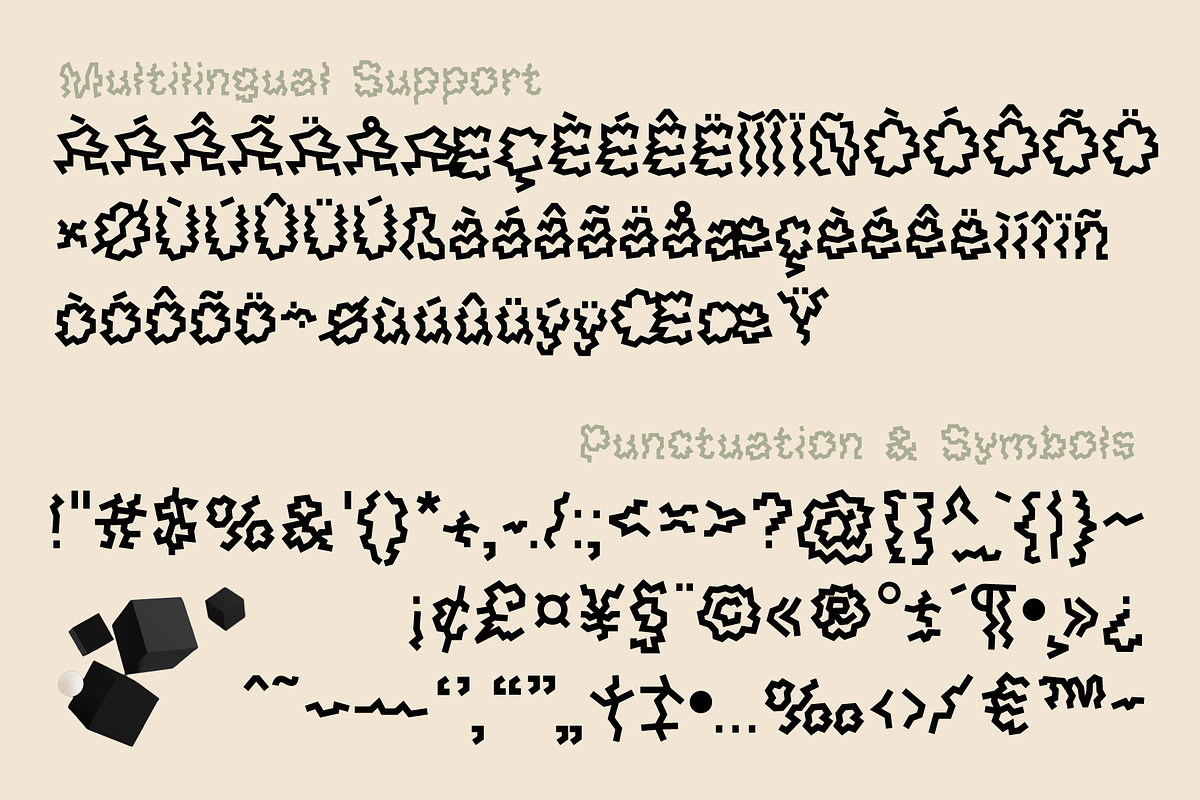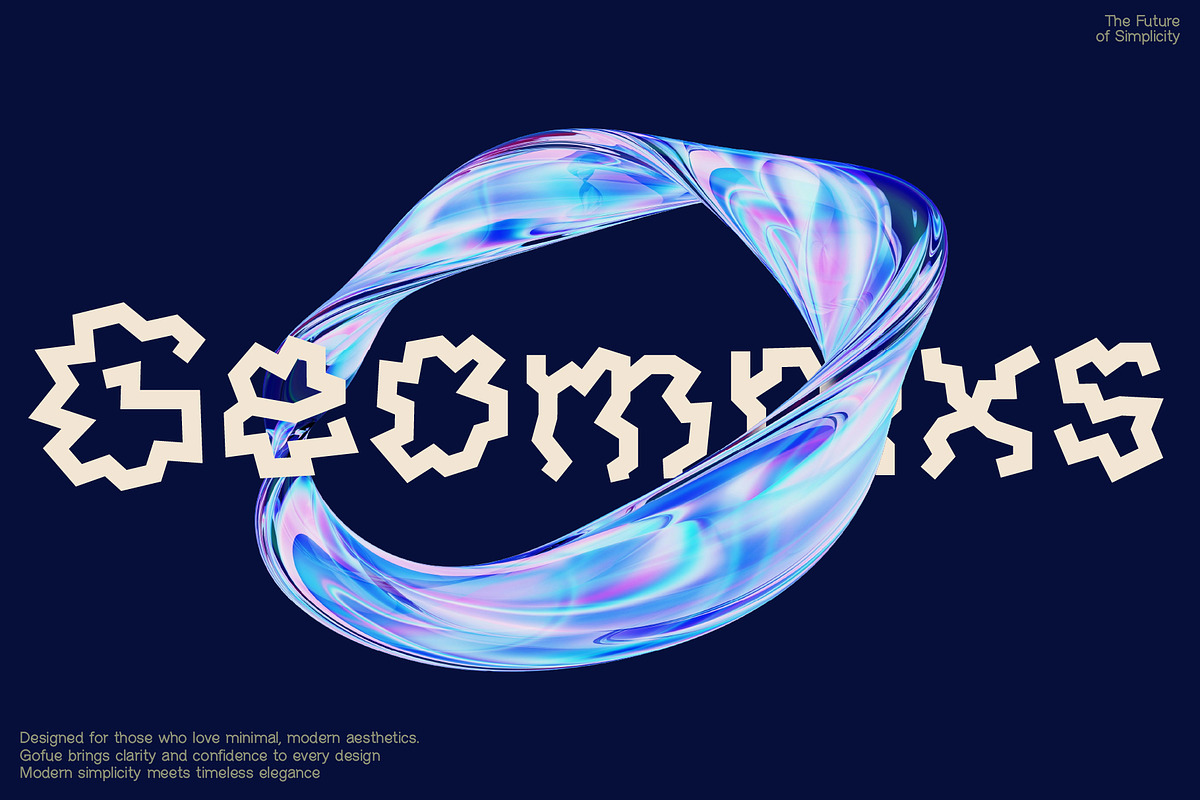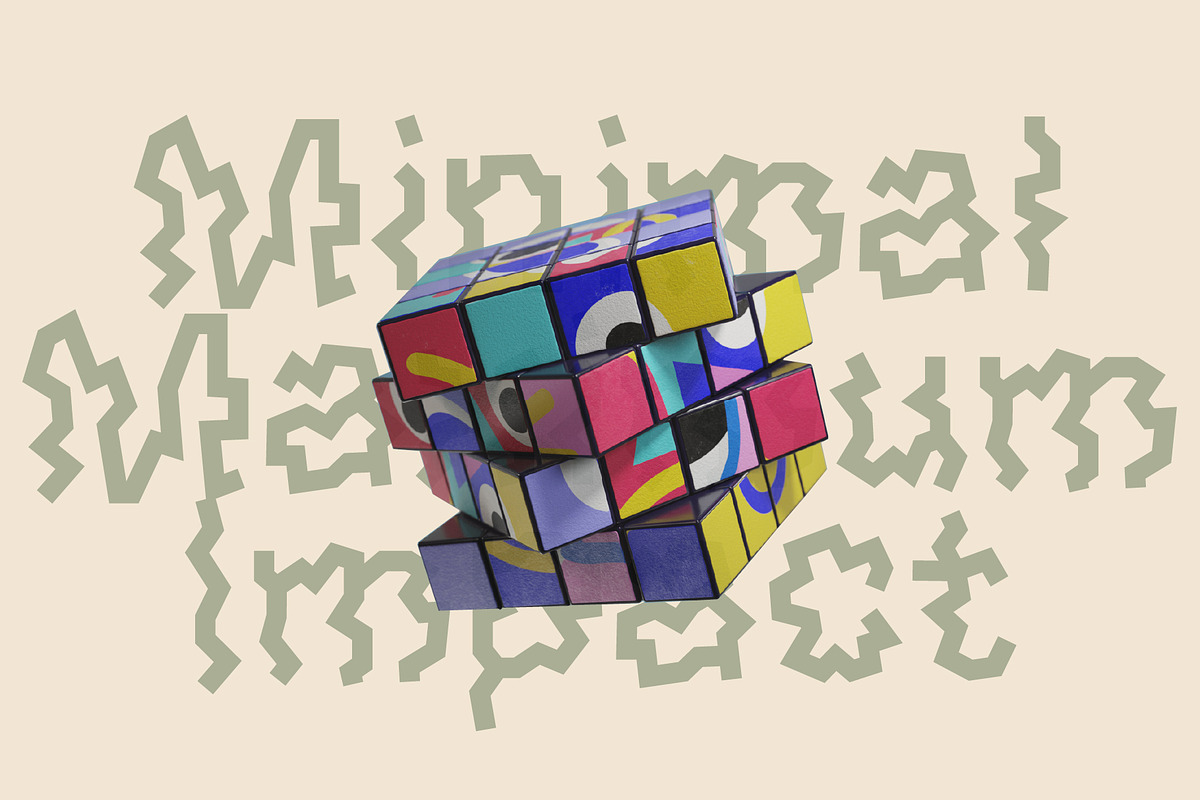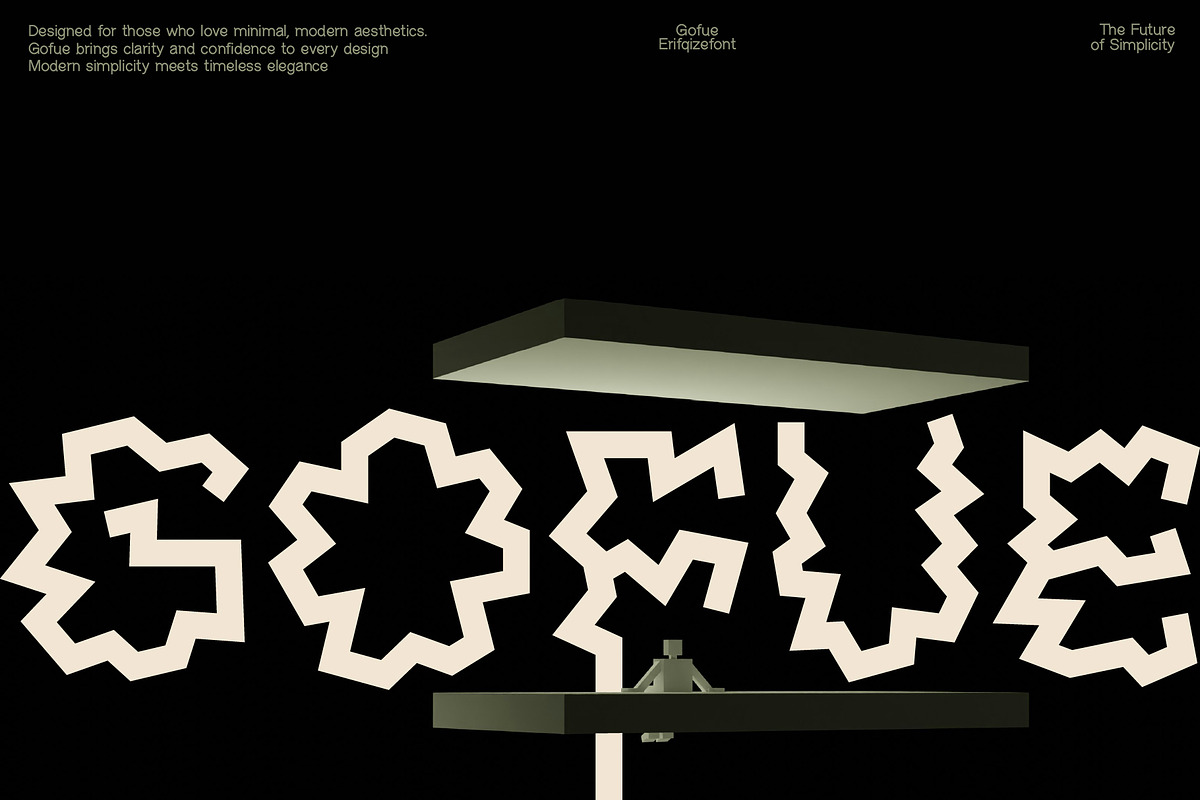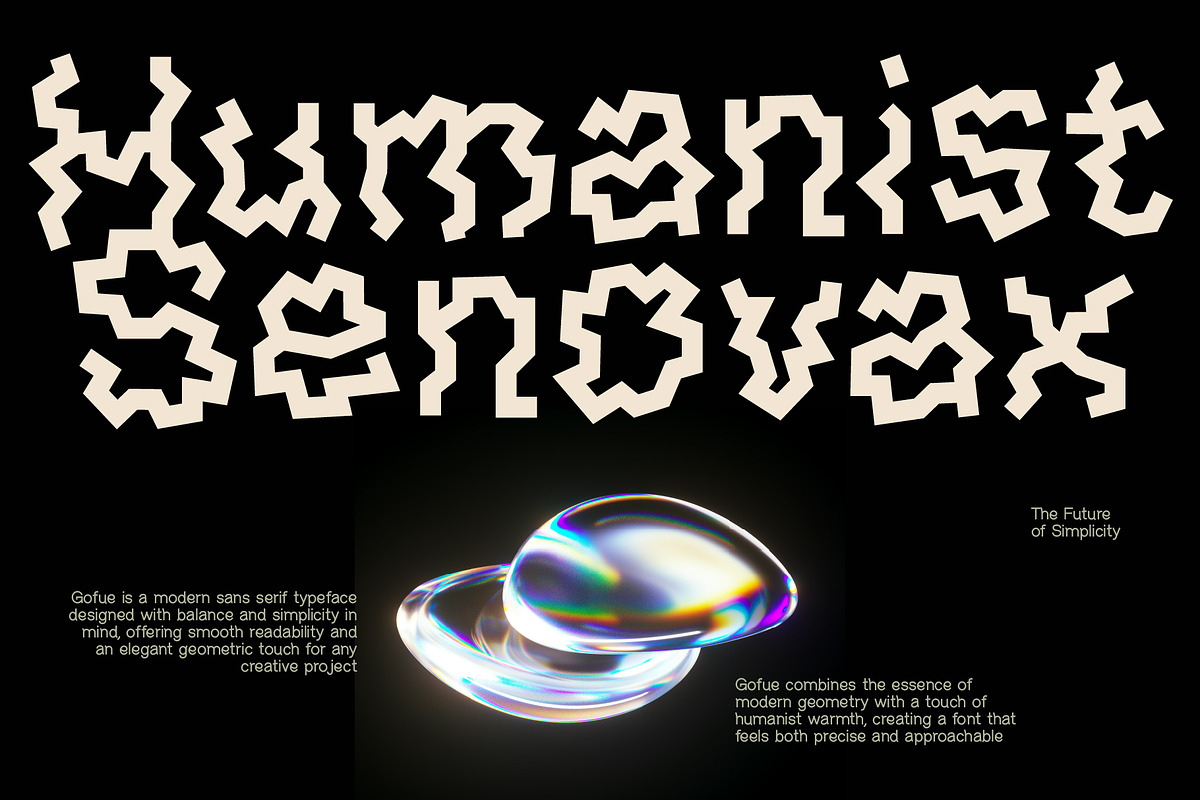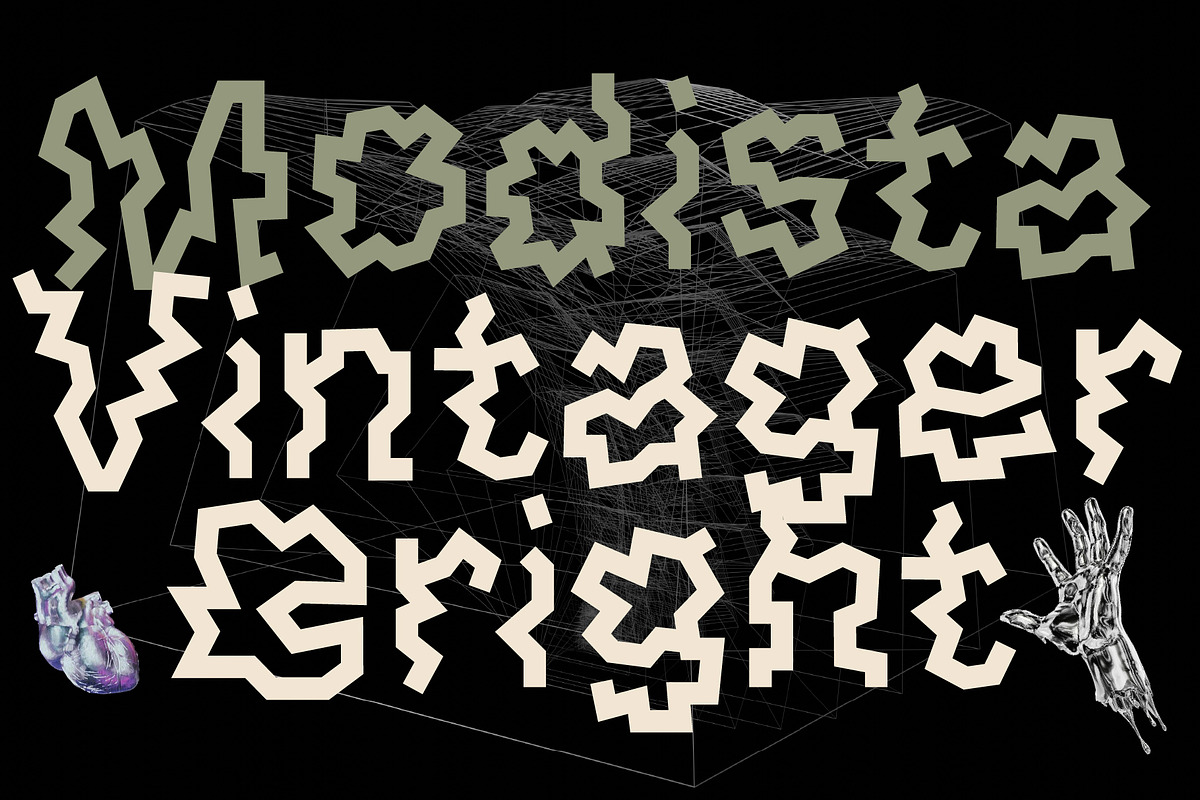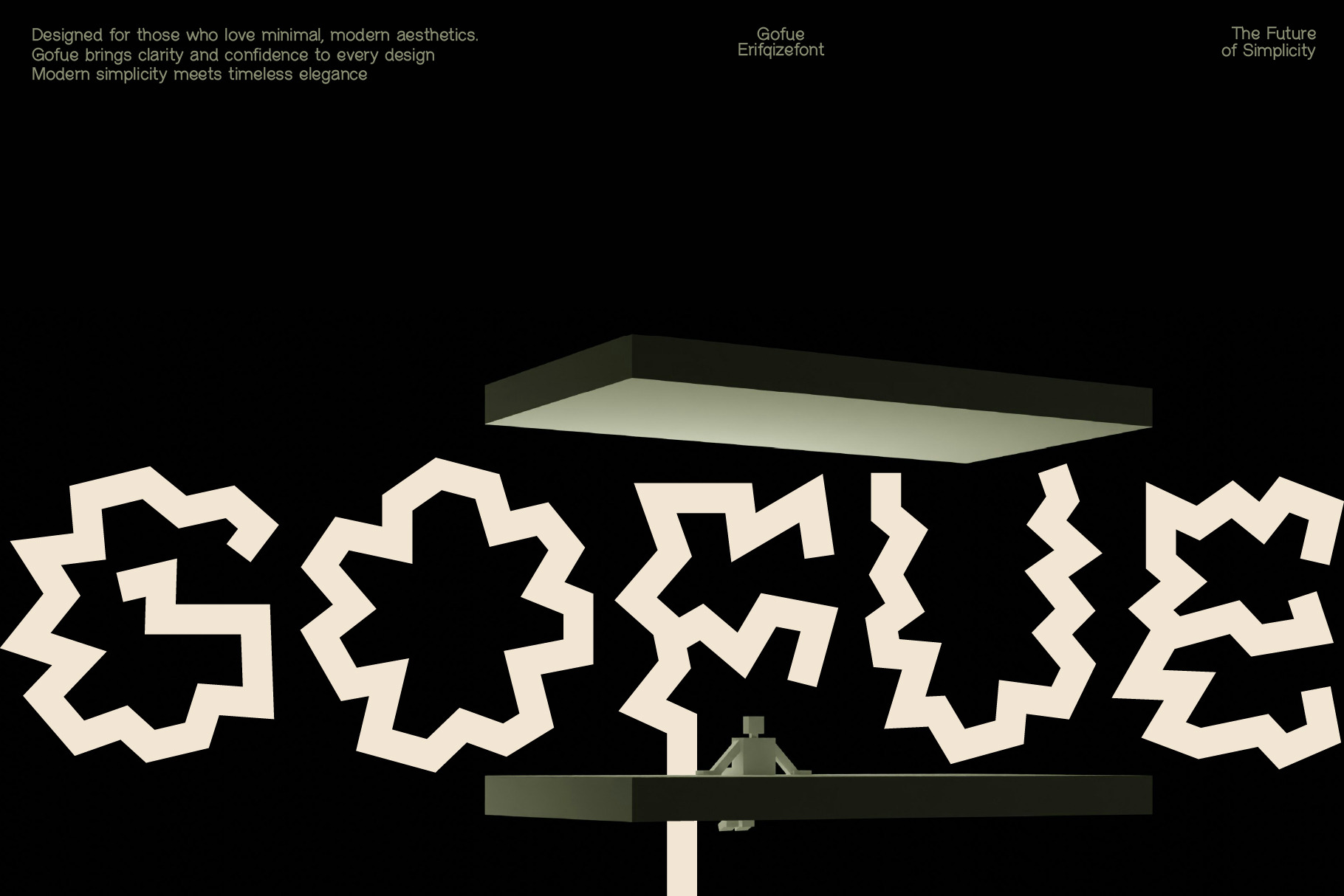
Gofue Font
Gofue is a modern experimental display font designed for creators who love minimal and futuristic aesthetics. With its geometric and unconventional letterforms, Gofue brings a bold visual identity to any project while maintaining a clean and contemporary feel.
Perfect for branding, posters, headlines, logos, editorial layouts, and digital designs, this typeface stands out with its artistic structure and strong character. It’s ideal for designers looking to create impactful visuals that feel modern, confident, and distinctive.
Modern simplicity meets expressive form — Gofue helps your design communicate creativity, clarity, and innovation in every composition.